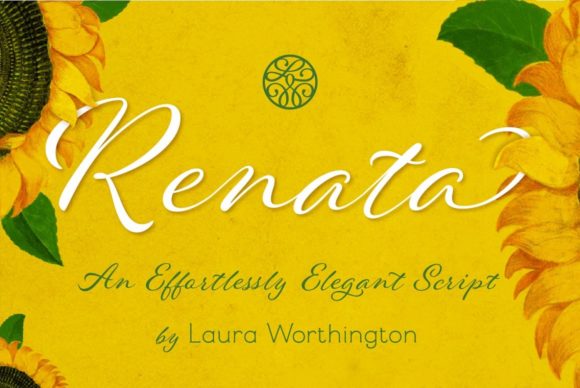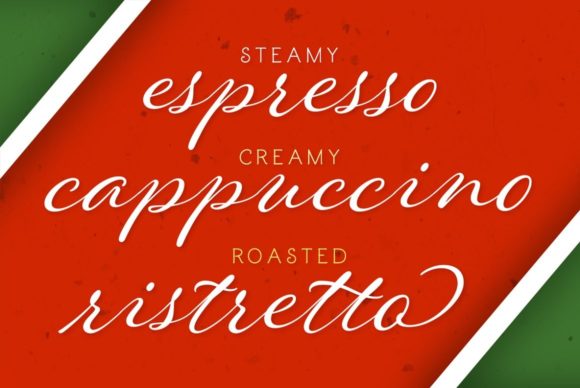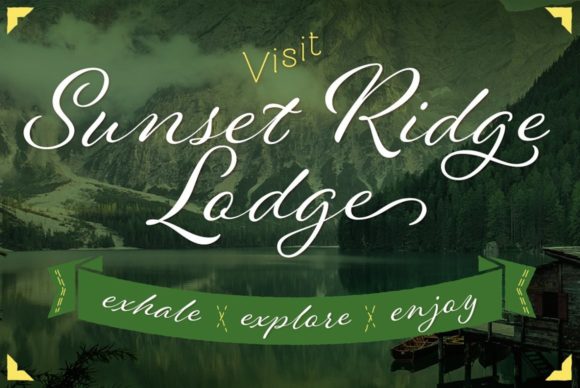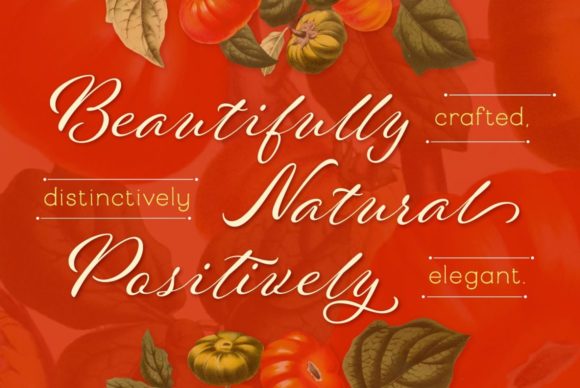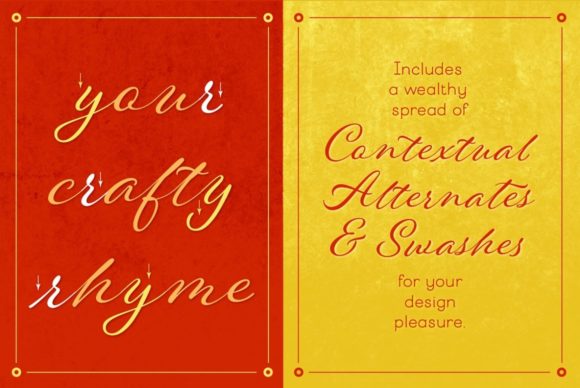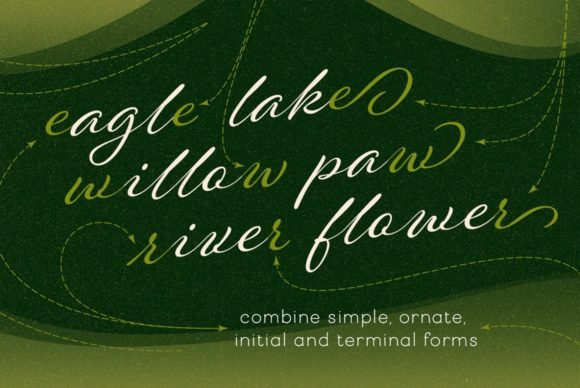
About Renata Font
Both casual and upscale, Renata features inviting, unpretentious letterforms, stroked by the hand of an experienced calligrapher with a small brush-tipped pen. Renata has a fluid, languorous look that suggests elegance, quality, and a handcrafted touch. It’s exceptionally readable thanks to its high x-height and spacious connecting strokes. It also looks exceptionally natural – every lowercase letter includes not only its normal connected form, but a beginning, ending, and an “isolated” form (useful for settings like “mar y sol,” “o sole mio”; lettered lists; and creative uses like wordmarks). Renata also includes a full complement of alternates, ligatures, and swashes.